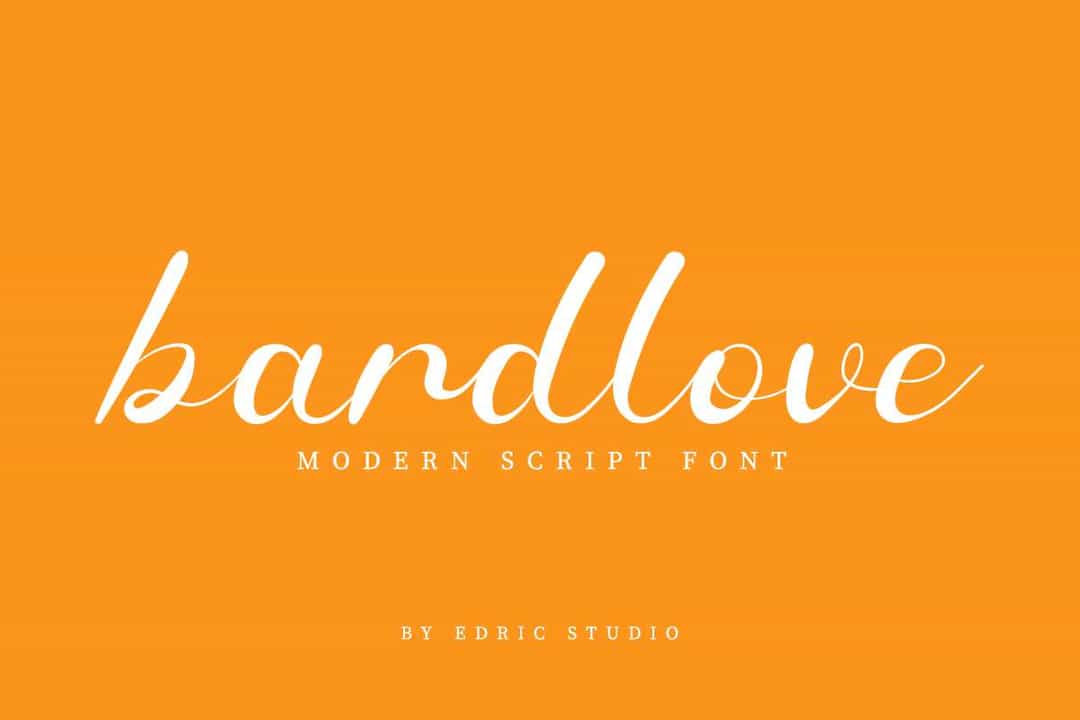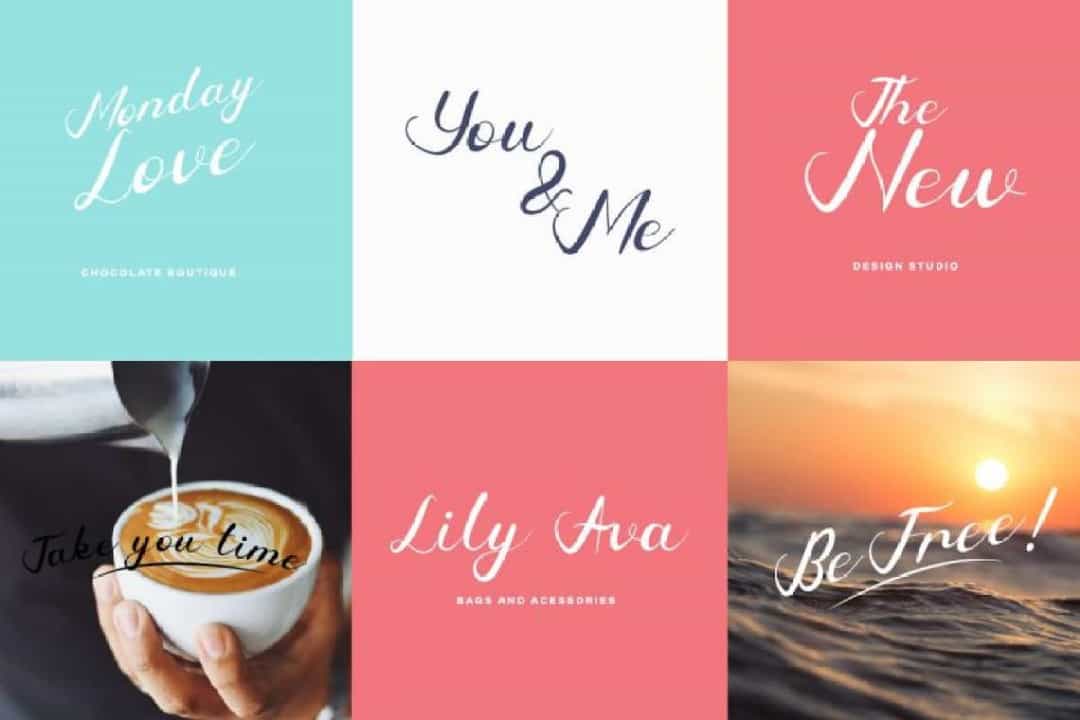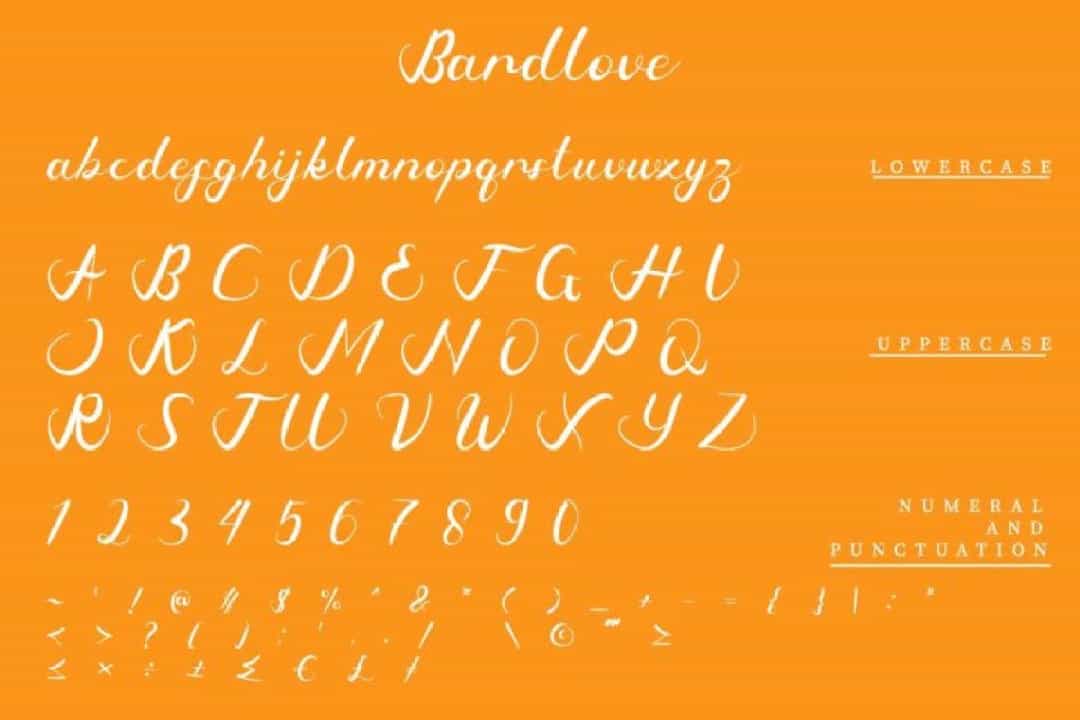
Bardlove is a unique script typeface with stunning design. It has a stunning characters set that is perfectly controlled with carefully spaced and Kerning. The design of this font is elegant, glamorous, modern classic, trendy elegant and classic brush calligraphic style. It is not available anywhere or anywhere else the style of Bardlove Calligraphy Font